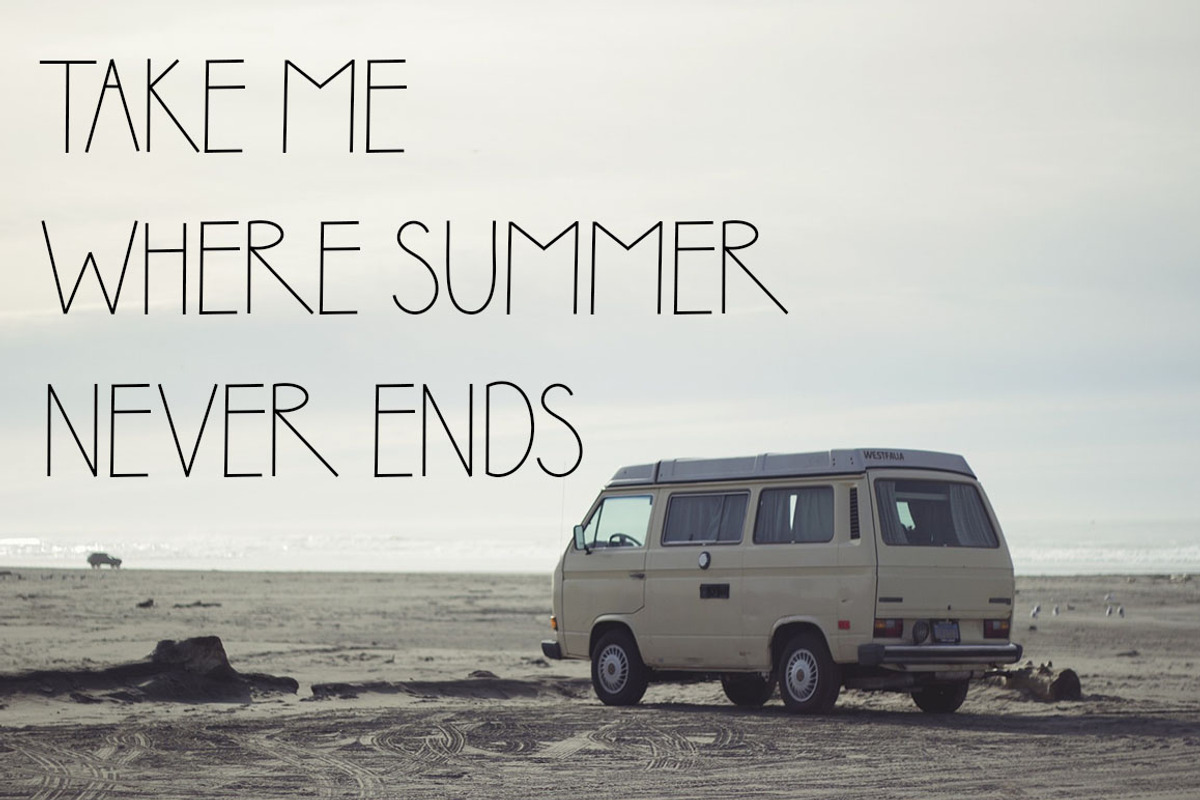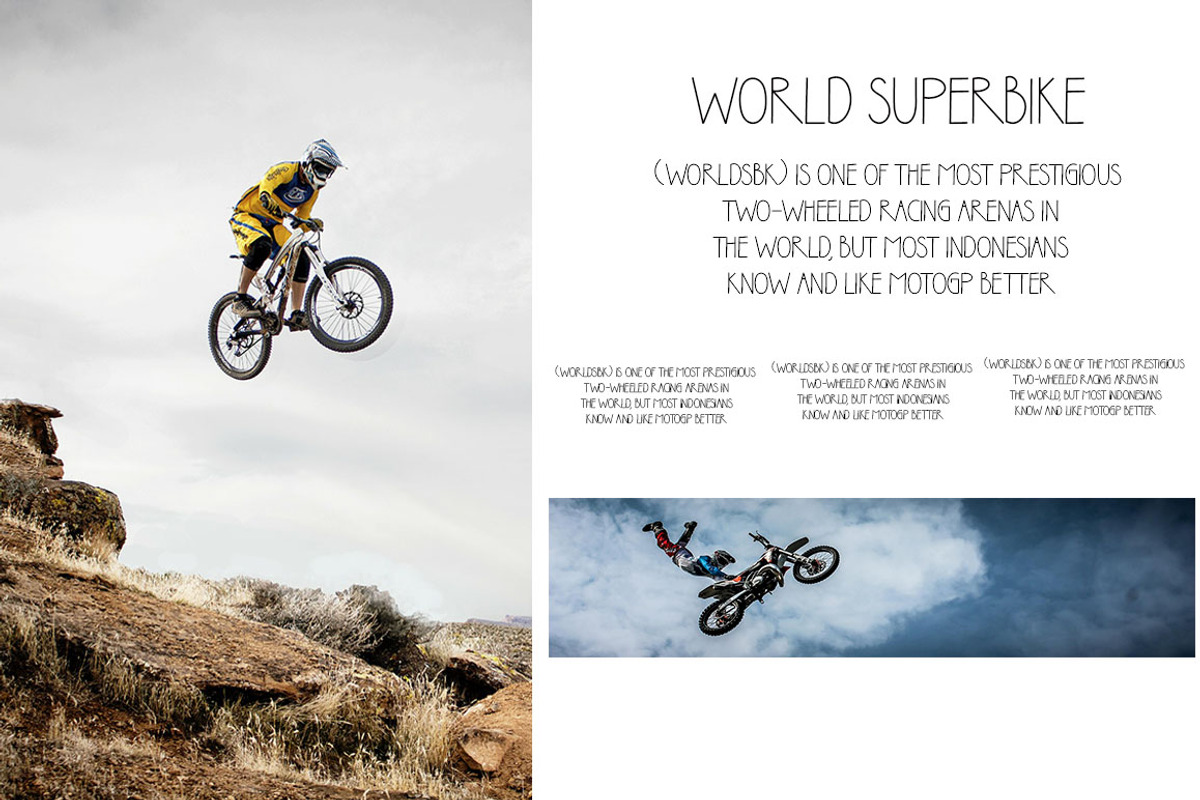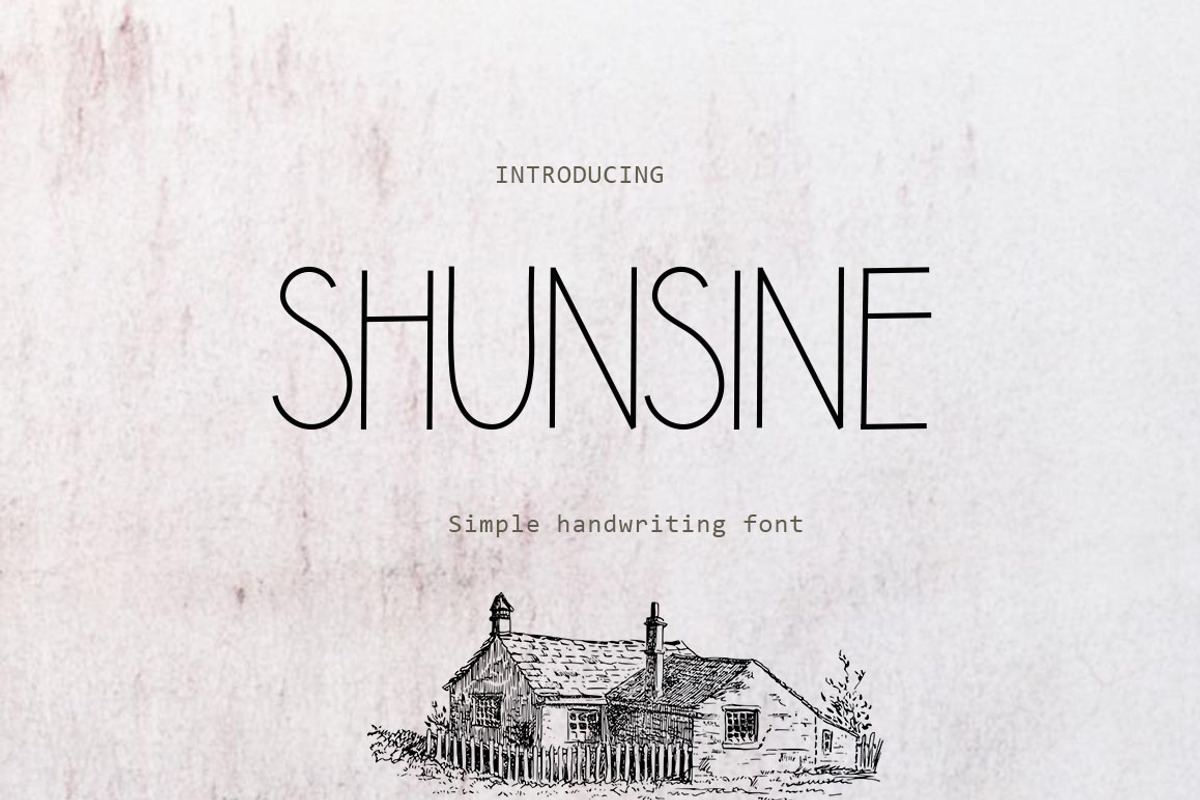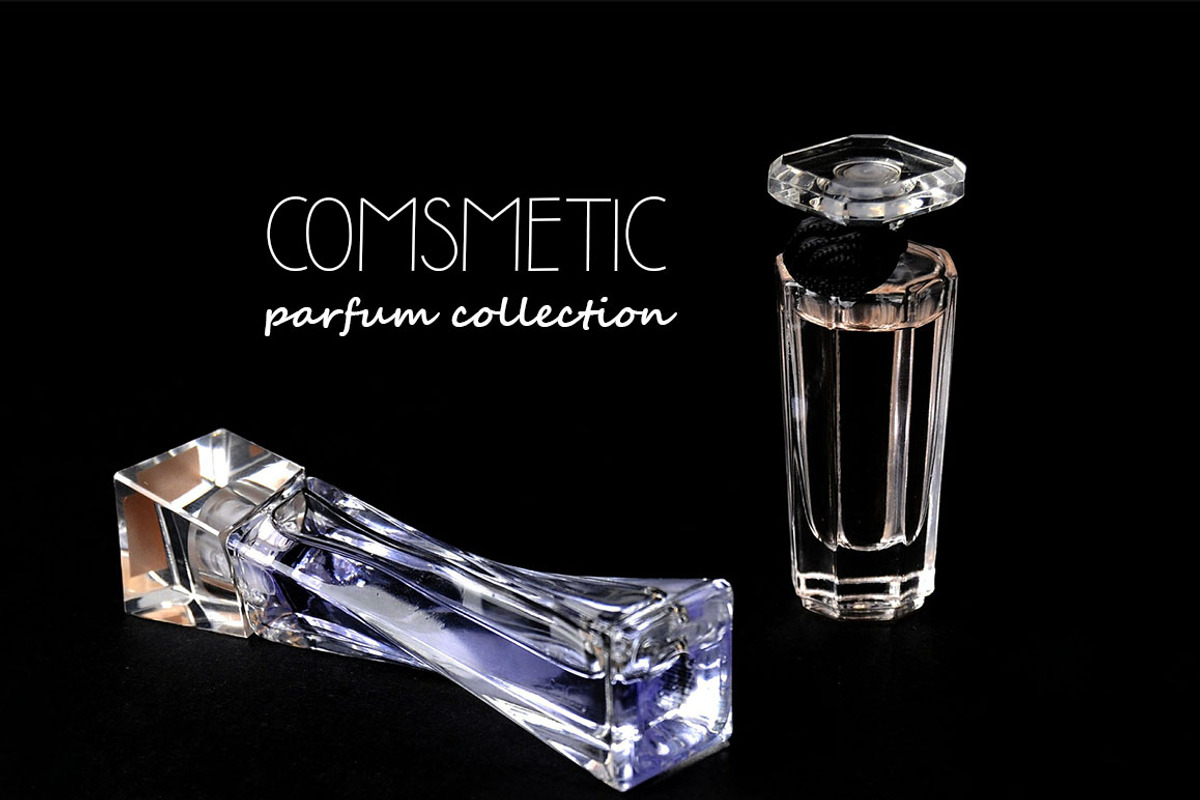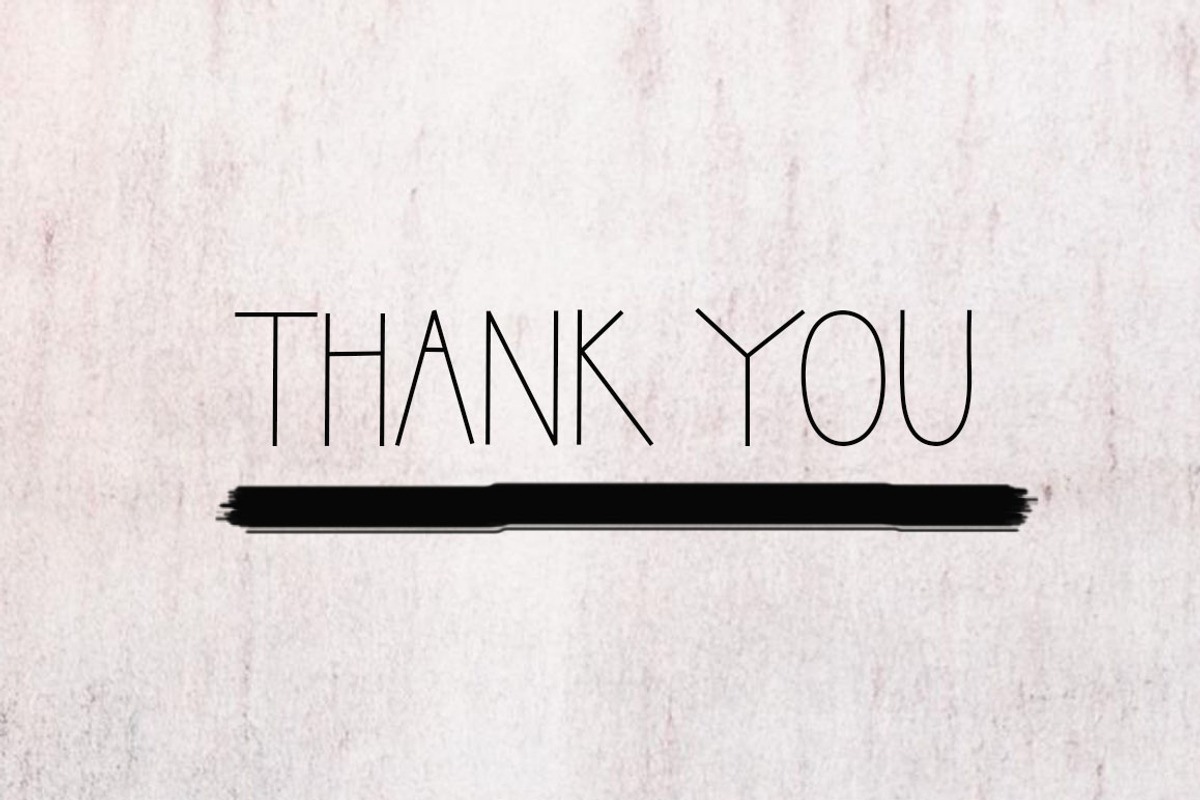
SHUNSINE
Shunsine is perfect for your upcoming projects such as luxury logo and branding, classy editorial design, woman magazine, cosmetic brand, fashion promotional, art gallery branding, museum, historical architecture, boutique branding, stationery design, blog design, modern advertising design, card invitation, art quote, home decor, book/cover title, special events, and more